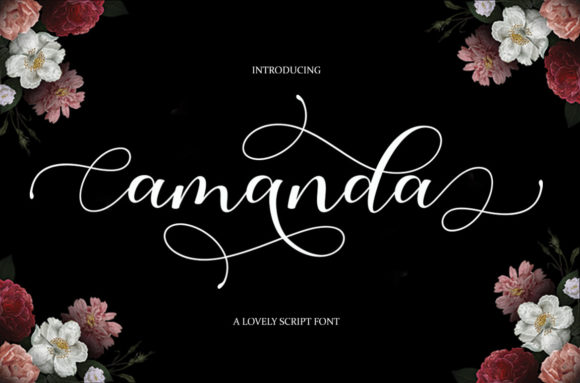
The Amanda Font: A Sweet and Friendly Companion for Your Design Journey
I’ll never forget the moment I stumbled upon the Amanda font while working on a branding project for a client’s boutique. I was on a tight deadline, and my design just wasn’t coming together. The client’s request was simple: create a warm, inviting visual identity that would make their customers feel like they’re walking into a cozy coffee shop. But, as I scrolled through my font library, nothing seemed quite right. That’s when I discovered Amanda – a sweet and friendly handwritten font that instantly elevated my design.
What I Love About Amanda ✨
• ✅ Natural and unique style: Amanda’s handcrafted feel makes it perfect for a wide range of designs, from branding and packaging to invitations and social media graphics.
• ✅ PUA encoded for easy access: With PUA encoding, I can easily access all the glyphs and swashes, making it a breeze to customize my designs.
• ✅ Versatile and imaginative: Whether I’m creating a whimsical children’s book or a sophisticated business card, Amanda adapts seamlessly to any design concept.
While Amanda is an amazing font, there are a few minor things to keep in mind:
• ⚠️ Some characters may require manual kerning: As with any handwritten font, a few characters might need a bit of manual kerning to get them sitting just right.
• ⚠️ Not ideal for very small text sizes: Due to its delicate nature, Amanda may not be the best choice for very small text sizes or low-resolution applications.
The Story Behind Amanda: Designer Inspiration
While I couldn’t find much information on the origins of Amanda, I like to imagine that it was created by a talented designer who wanted to craft a font that would bring joy and warmth to people’s lives. Perhaps they drew inspiration from handwritten letters, vintage posters, or the imperfections of everyday writing. Whatever the story, Amanda’s unique charm has captured the hearts of designers and crafters alike.
A: PUA (Private Use Area) encoding allows font creators to include additional characters, glyphs, and swashes that can be accessed easily in design software. This means you can enjoy a wider range of creative possibilities with Amanda.